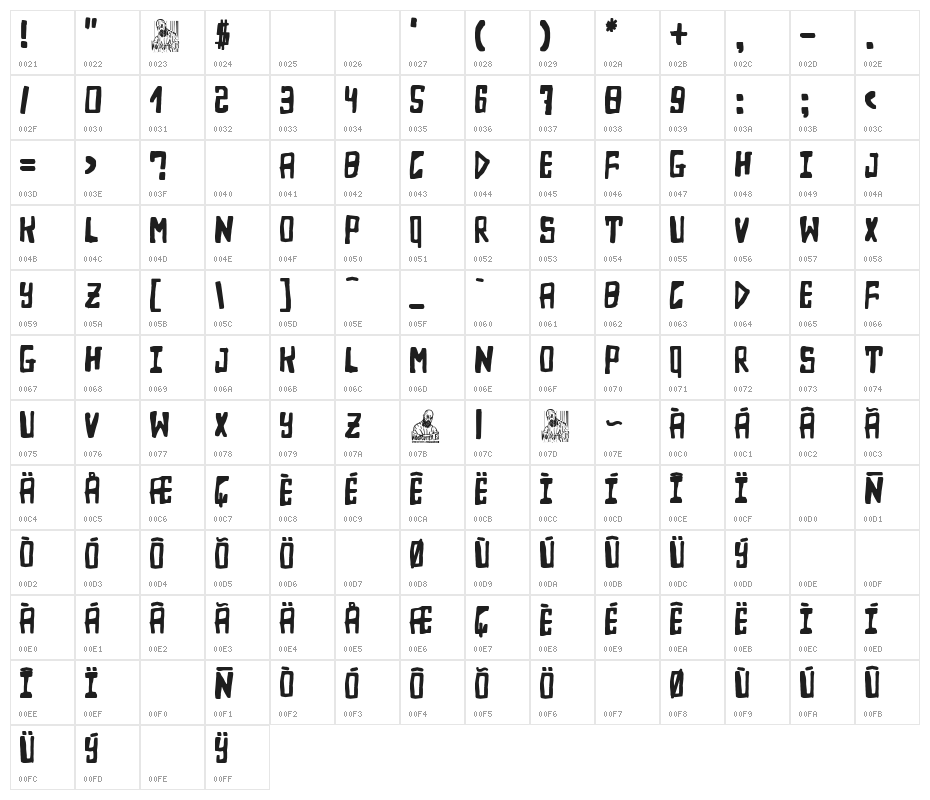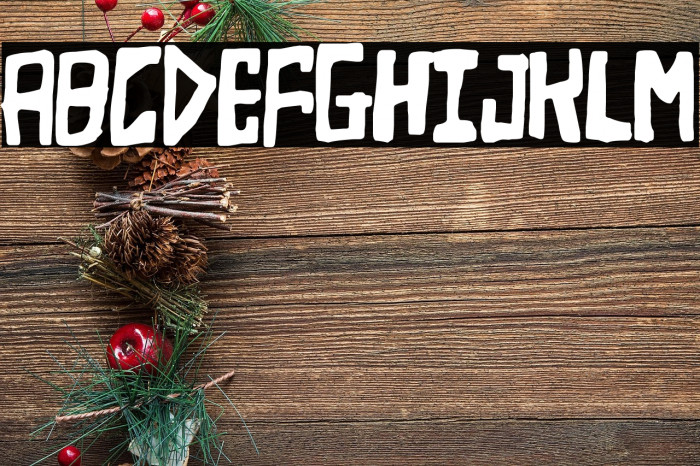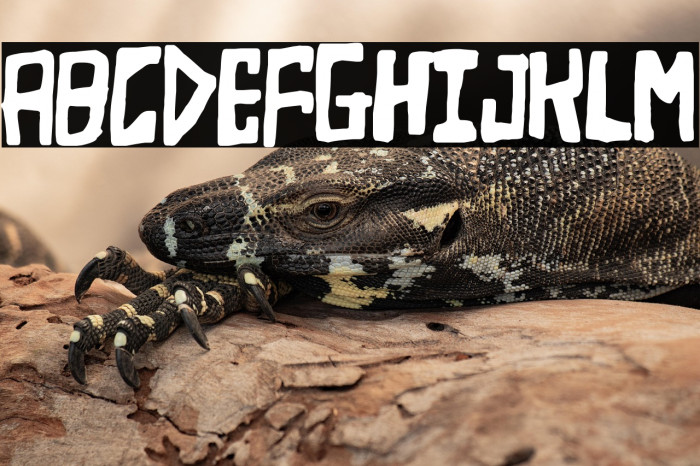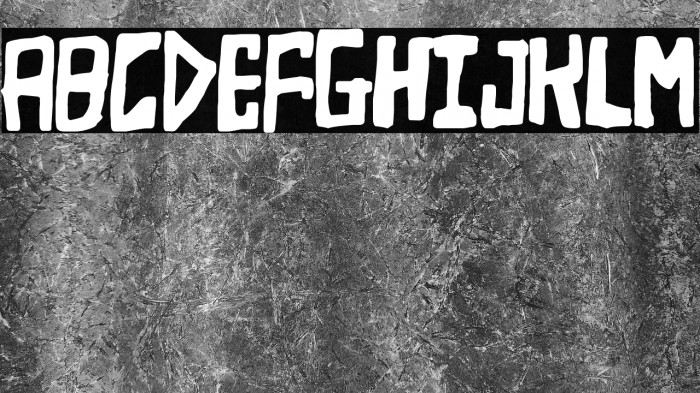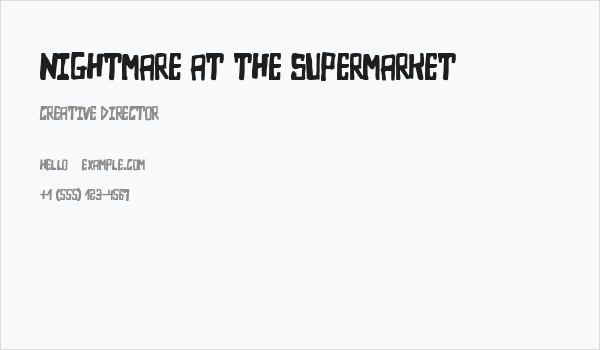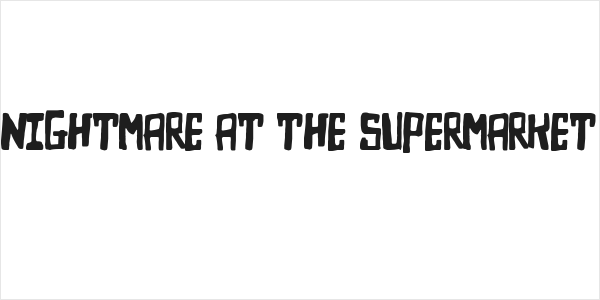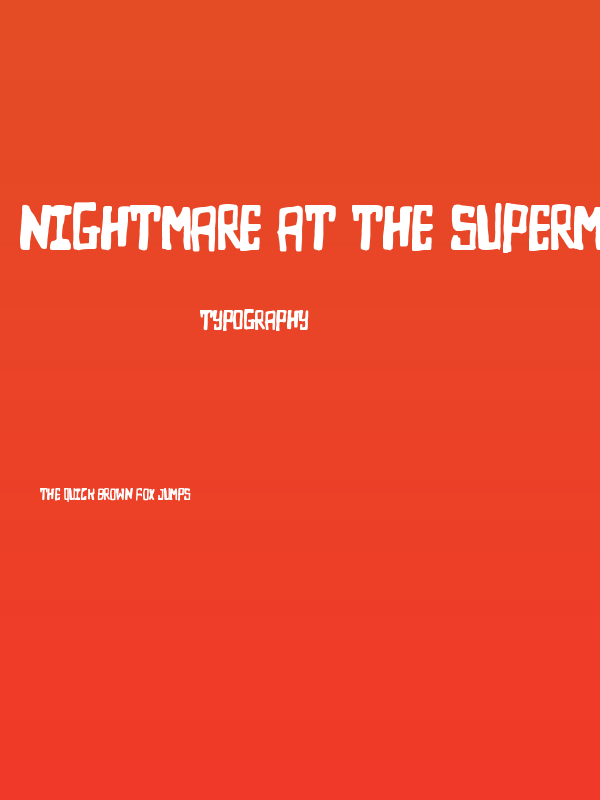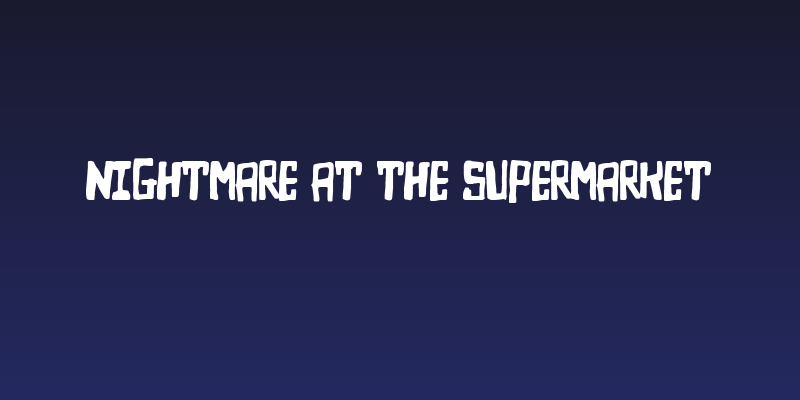
Nightmare at the Supermarket Font
Nightmare at the Supermarket Description
This font features a bold and irregular design, with each character appearing hand-drawn and slightly distorted, giving it a unique and quirky appearance. The letters have a playful yet edgy style, with uneven lines and varying thickness that add to its character. The uppercase and lowercase letters maintain a consistent style, while the numbers and special characters follow the same irregular pattern, enhancing the overall cohesive look. This font is perfect for projects that require a touch of whimsy and creativity, making it ideal for eye-catching headlines or artistic designs.
| Proposed Projects | Ideal for posters, album covers, children's book titles, and creative branding. |